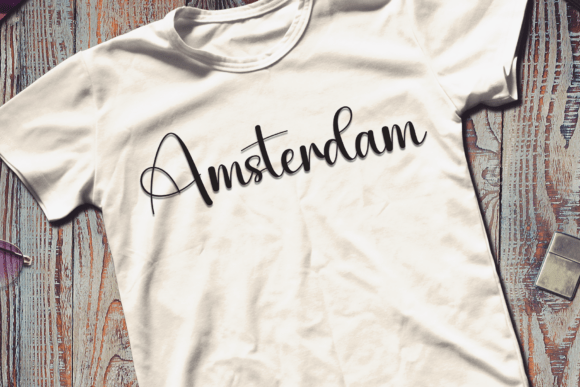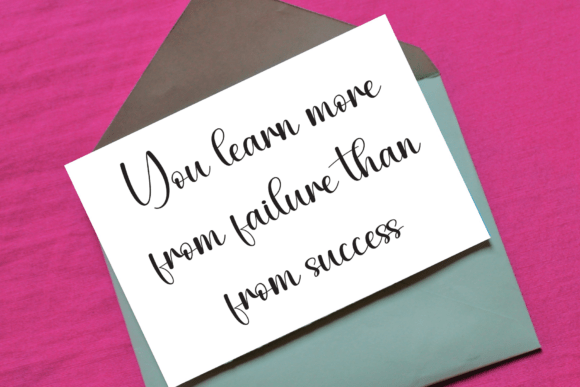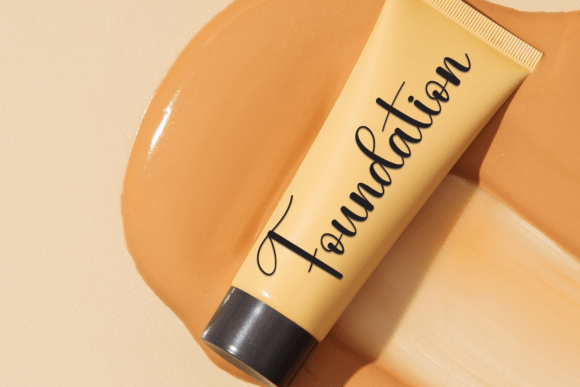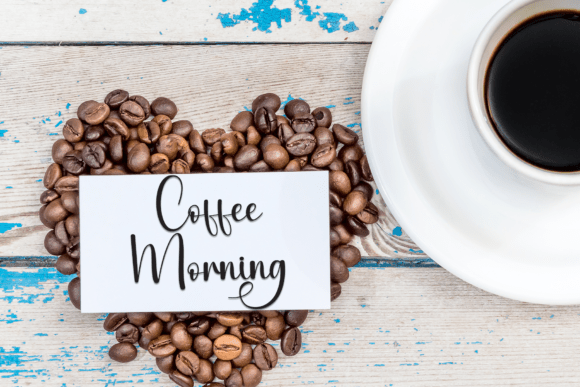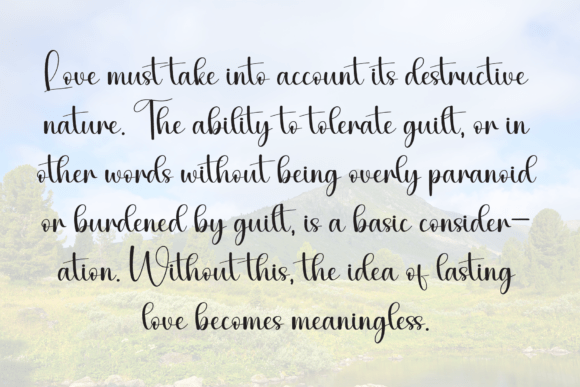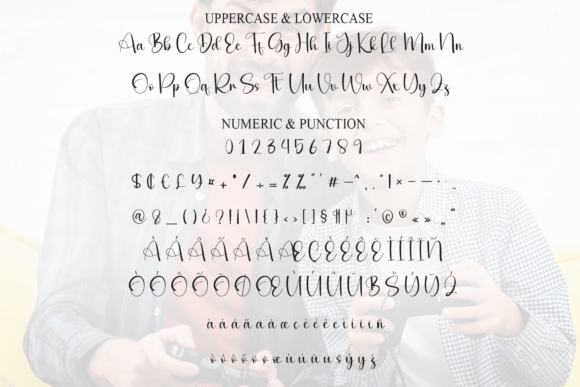
Introducing Daddy Font: The Perfect Handwritten Script for Personal and Creative Projects
Are you looking for a font that adds a touch of warmth, elegance, and personality to your creative projects? Look no further than Daddy Font, a beautiful handwritten script font that is perfect for designers, crafters, and anyone looking to add a personal touch to their work. With its bold yet elegant flow, smooth curves, expressive strokes, and stylish swashes, Daddy Font is ideal for use in a variety of applications, from greeting cards and family-themed designs to apparel, branding, social media posts, and more.
A Font that Balances Playfulness and Sophistication
One of the standout features of Daddy Font is its ability to balance playfulness and sophistication. This font is designed to work beautifully in both casual and formal contexts, making it a versatile addition to any designer’s toolkit. Whether you’re creating a playful birthday card or a formal business announcement, Daddy Font brings a sense of personality and polish to your typography.
Perfect for Adding a Heartfelt and Personal Touch
Daddy Font is all about adding a heartfelt and personal touch to your creative projects. With its smooth curves and expressive strokes, this font captures a sense of warmth and charm that is perfect for use in projects that require a personal touch. Imagine using Daddy Font to create a custom birthday card for a loved one, or to add a personal message to a piece of apparel or home decor. The result is a project that feels truly special and meaningful.
Key Features of Daddy Font
- Handwritten Script Font: Daddy Font is a beautiful handwritten script font that features a bold yet elegant flow.
- Smooth Curves and Expressive Strokes: The font’s smooth curves and expressive strokes give it a sense of warmth and charm.
- Stylish Swashes: Daddy Font includes stylish swashes that add an extra touch of elegance and sophistication.
- Works in Both Casual and Formal Contexts: Daddy Font is versatile enough to work beautifully in both casual and formal contexts.
Use Daddy Font in a Variety of Applications
Daddy Font is perfect for use in a wide range of applications, including:
- Greeting Cards: Use Daddy Font to create custom birthday cards, holiday cards, and other special occasion cards.
- Family-Themed Designs: Add a personal touch to family-themed designs, such as custom t-shirts, mugs, and home decor.
- Apparel: Use Daddy Font to create custom apparel, such as t-shirts, hoodies, and hats.
- Branding: Add a touch of personality and elegance to your brand with Daddy Font.
- Social Media Posts: Use Daddy Font to create eye-catching social media posts that stand out from the crowd.
In conclusion, Daddy Font is a beautiful handwritten script font that is perfect for designers, crafters, and anyone looking to add a personal touch to their creative projects. With its bold yet elegant flow, smooth curves, expressive strokes, and stylish swashes, Daddy Font is ideal for use in a variety of applications. Whether you’re creating a custom greeting card, family-themed design, or apparel, Daddy Font brings a sense of personality and polish to your typography.